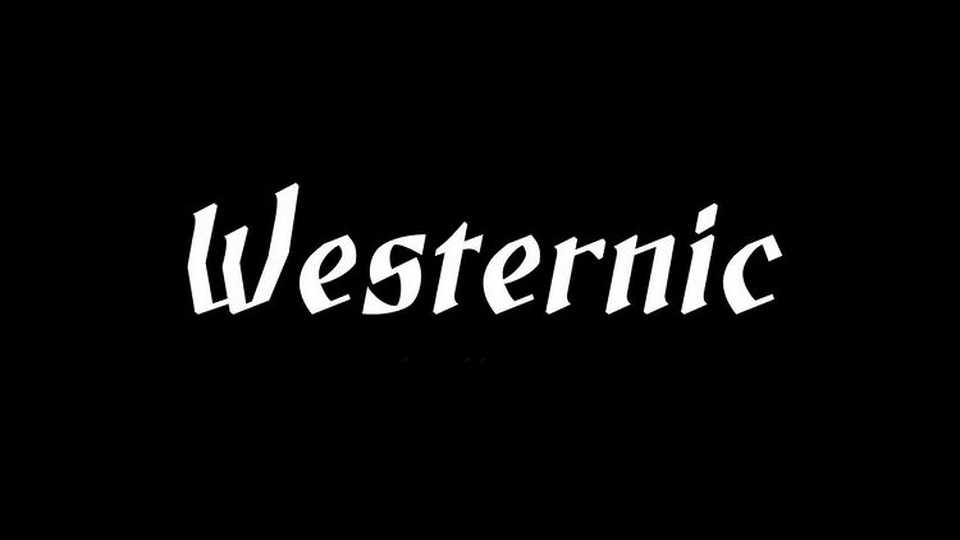
Download Westernic font, a semi-gothic italic typeface inspired by a 1920s electricity company poster. Combining the flair of early industrial lettering with the elegance of blackletter influences, it offers a distinctive balance between structure and motion.